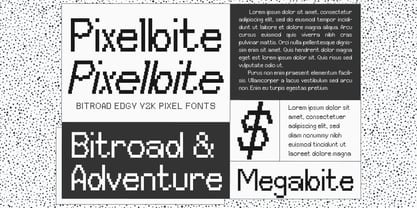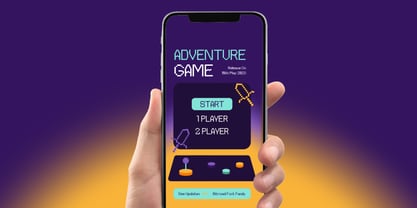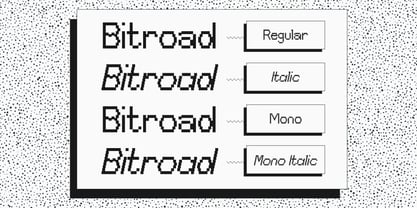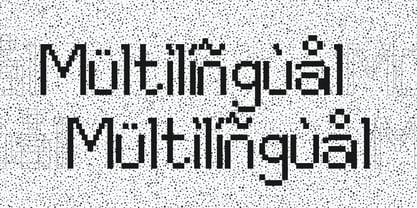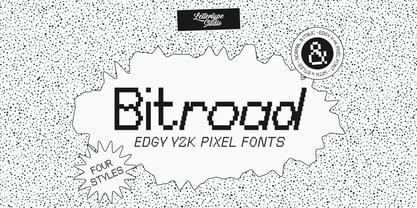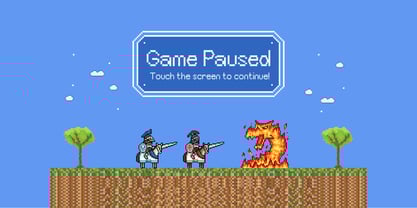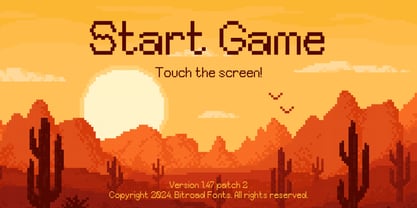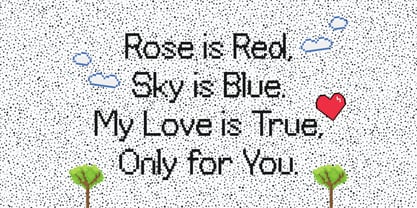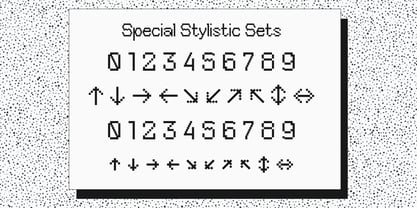
Bitroad Mono
by Lettertype Studio
The Bitroad Mono Font Family was designed by Diki Pradipta Tri Atmojo and published by Lettertype Studio. Bitroad Mono contains 4 styles and family package options. More about this family
Bitroad is an edgy pixel Y2K fonts that combine nostalgic 80's and 2000's styles, perfect for bold, retro-inspired designs. These versatile fonts, ideal for headlines, logos, pixel games, 8-bit games interface, and editorial use, bring a playful yet impactful touch to any project.
Bitroad Font offering multiple styles and multilingual support, elevates your digital and print creations with a unique vintage flair. This font works in large and small sizes and includes 4 styles normal, italic, monospaced, and mono-italic.